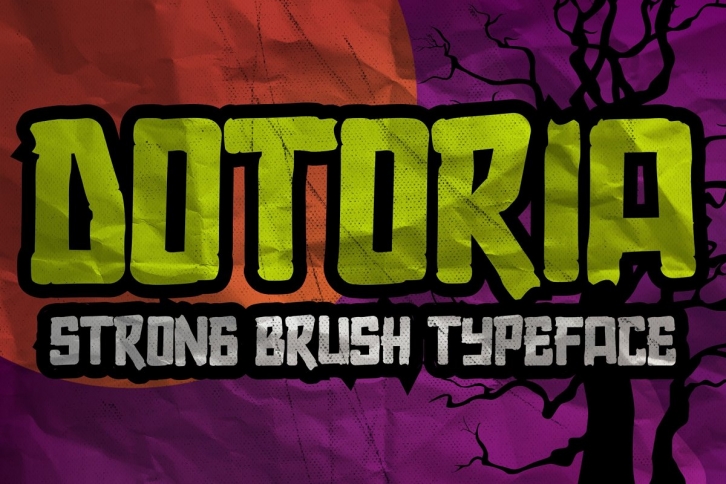
DOTORIA - Handwritten Brush font with comical type.Crafted manually with love and passion, This font is great for your next creative project such as logos, printed quotes, invitations, cards, product packaging, headers, Logotype, Letterhead, Poster, Label, Game project and etc.